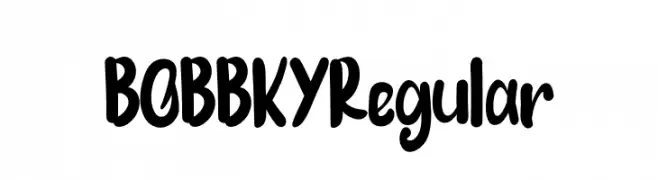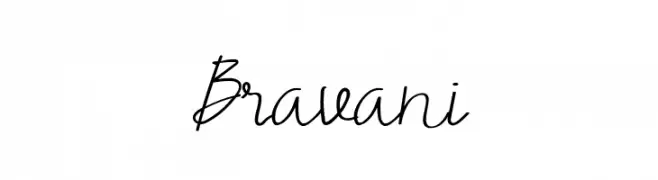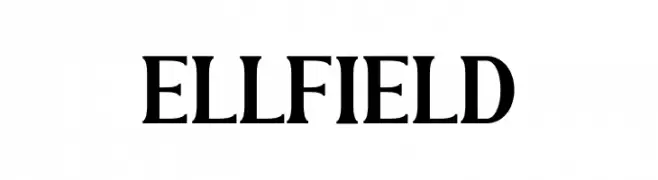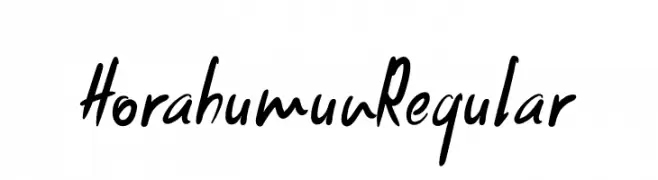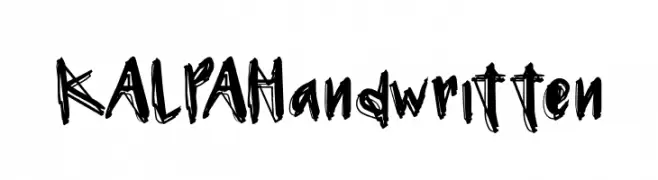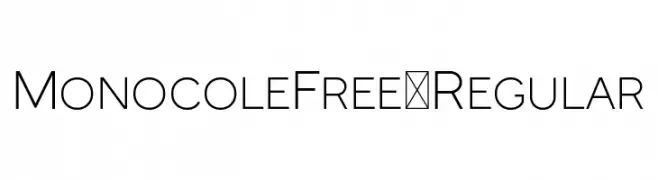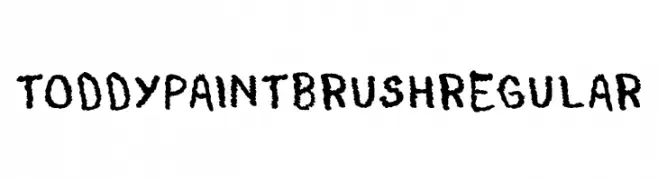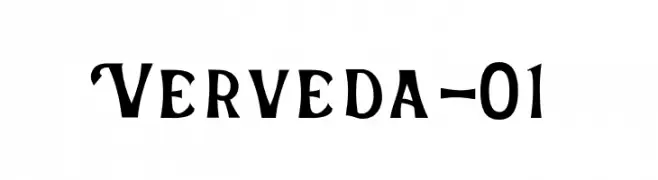
A bold, decorative font with classic and whimsical elements.
A classic serif font with bold, structured characters and sharp serifs.
A bold, playful font with rounded, hand-drawn characters.
A dynamic handwritten font with fluid strokes and a casual feel.
A clean, modern sans-serif font with a minimalist design.
A bold, brushstroke-style font with a playful, artistic flair.
A playful handwritten font with fluid, connected strokes and a whimsical flair.
A bold, expressive handwritten font with dynamic strokes and artistic flair.
A playful, handwritten font with fluid strokes and a modern artistic flair.
A bold, brush-style font with dynamic, hand-painted strokes.